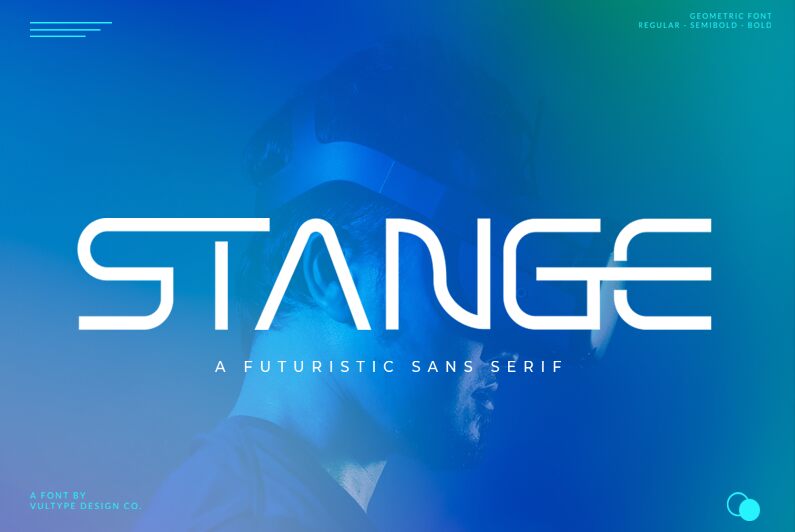
Stange Regular
Stange, a bold and futuristic display typeface crafted by Vultype, exudes a captivating sense of modernity and technological prowess. With its expanded width and distinct letterforms, this font commands attention, making it a standout choice for eye-catching designs. The sharp, angular edges and geometric shapes evoke a sense of sleek sophistication, perfectly suited for projects seeking a visually striking and contemporary aesthetic.
This versatile font can elevate a wide range of design applications, from dynamic digital interfaces to impactful branding initiatives. Its expansive character set and legibility at various sizes make Stange an invaluable asset for designers seeking to create bold, futuristic, and visually compelling compositions that leave a lasting impression.